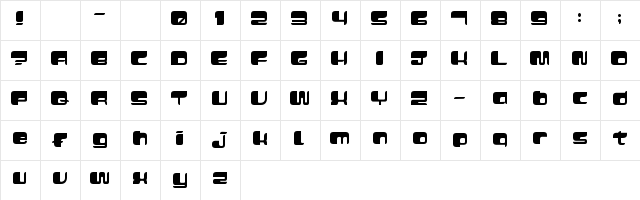
AddFatMan Regular Font Preview
AddFatMan Regular
Design Context for AddFatMan Typeface
AddFatMan is a composed and adaptable typeface that performs quietly and consistently across a wide range of design contexts.